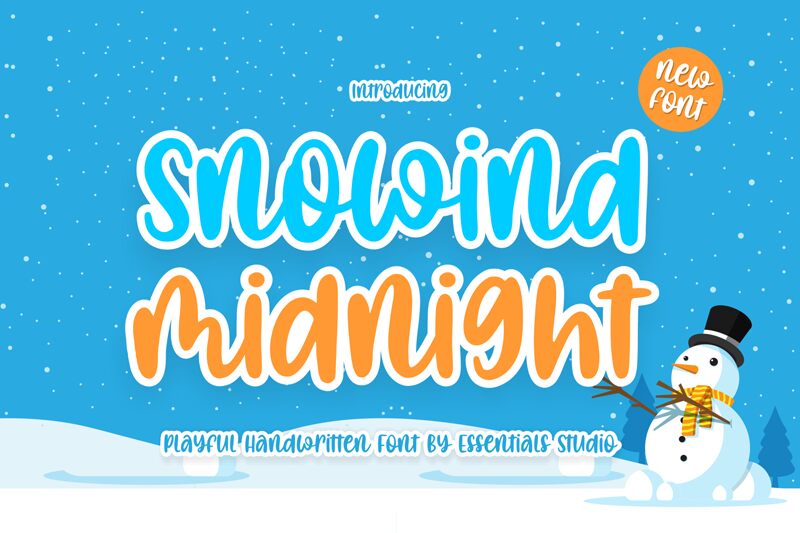
Snowind midnight
Snowind Midnight font was created by Essentials Studio in a smooth brush handwritten style. The design features bold, rounded edges and smooth curves with moderate contrast, evoking an informal mood and playful vibe. It seamlessly connects its flowing characters to create authentic designs every time.
Snowind Midnight is free for personal use, it is well-suited for eye-catching branding materials such as headlines, banners and posters. Add a touch of playfulness to your social media graphics and short animations or elevate online projects like interactive elements!